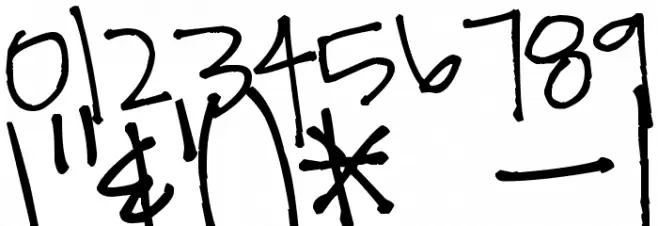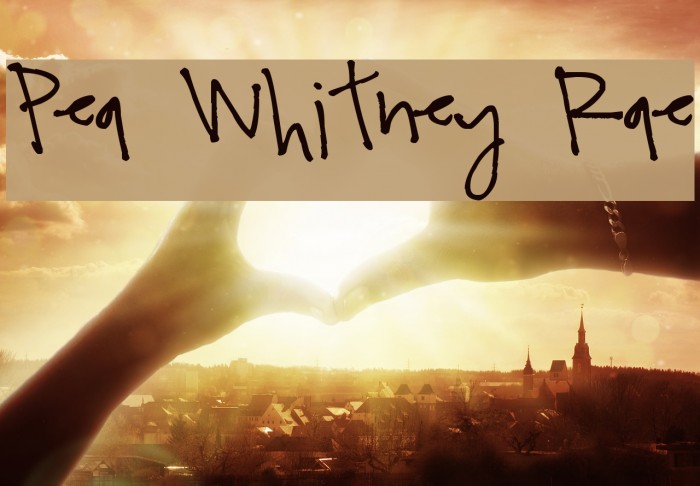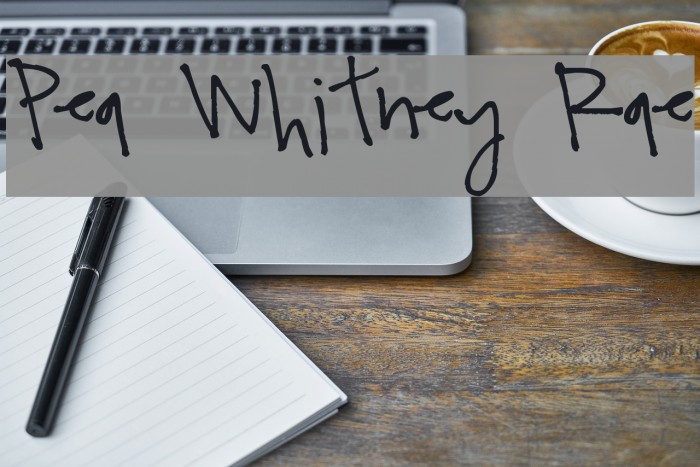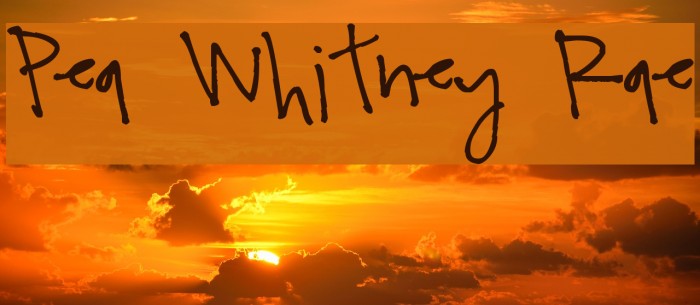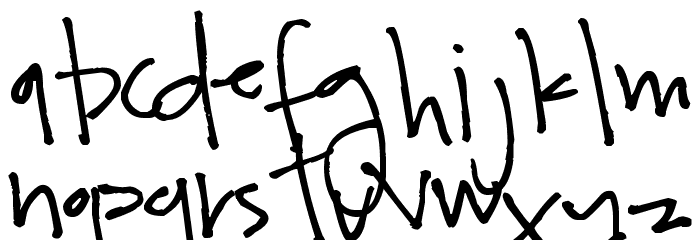
Pea Whitney Rae Font
Pea Whitney Rae Description
This font features a playful and casual handwritten style, characterized by its irregular and spontaneous strokes. The letters vary in size and angle, giving it a dynamic and lively appearance. The uppercase and lowercase letters maintain a consistent flow, while the numbers and special characters are crafted with the same whimsical touch. The overall look is informal and friendly, making it suitable for projects that require a personal and approachable feel.
A playful, casual handwritten font with irregular strokes from Uncategorized fonts.
- Proposed Projects: Ideal for greeting cards, personal notes, children's books, and informal branding.
- Overall Style: Casual, Playful
- Use Case: Headlines, Informal text, Personal projects